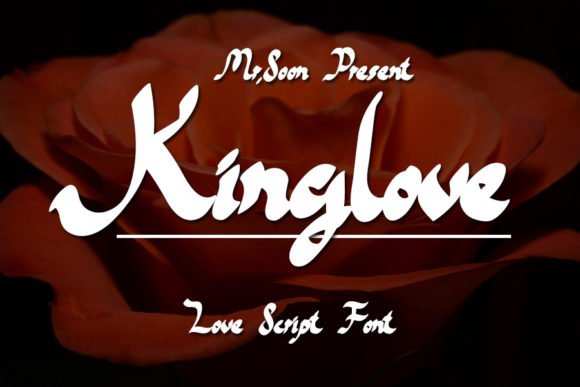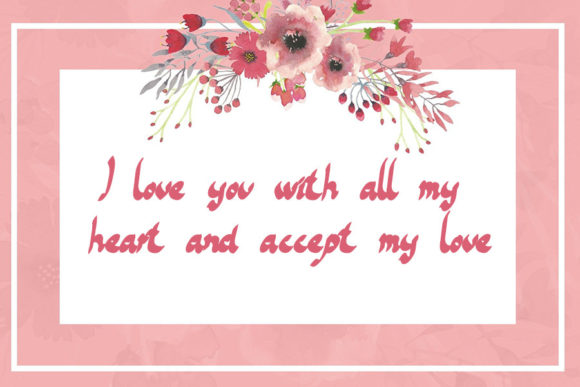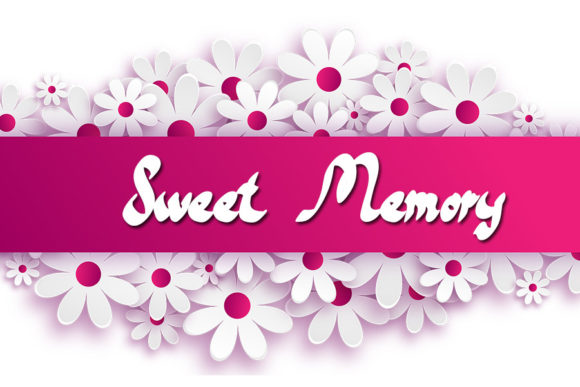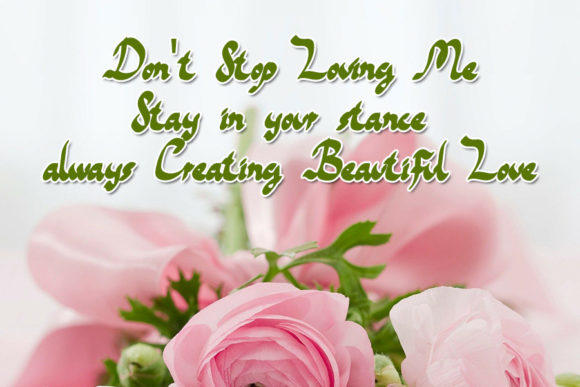
Unlock the Chic Charm of Your Designs with the Kinglove Font
Have you ever stared at a blank page, waiting for inspiration to strike? That’s exactly what happened to me when I discovered the Kinglove Font. As a designer, I was immediately drawn to its smooth curves and elegant feel. It’s the perfect addition to any project that requires a touch of sophistication and glamour.
The Kinglove Font is a chic and sweet script font designed to elevate your fashion branding or editorial designs. Its versatility makes it a valuable asset for designers looking to add a personal touch to their work. By incorporating the Kinglove Font into your projects, you’ll be able to convey a sense of luxury and refinement that’s sure to leave a lasting impression.
Kinglove Font Key Features
- Font Family: Kinglove Font is a unique, elegant script font designed for various applications.
- Character Set: The font includes a wide range of characters, including uppercase and lowercase letters, numbers, and punctuation marks.
- Unique Characteristics: Kinglove Font features elegant, flowing lines and a touch of sophistication, making it ideal for wedding invitations, branding, and other creative projects.
Kinglove Font Review
I recently had the chance to work with the Kinglove Font, and I must say it’s been an interesting experience. Here’s my honest review.
- The Kinglove Font has a unique, vintage charm that can add a touch of elegance to any design.
- The font is highly legible, making it perfect for body text and smaller font sizes.
- The font family includes a wide range of weights and styles, giving you plenty of options for customization.
- The font can be quite busy, with intricate details that may not be suitable for all designs.
- The font may not be the best choice for large font sizes, as it can become overwhelming.
- The font’s vintage feel may not be to everyone’s taste, so it’s essential to consider your target audience.
Overall, I think the Kinglove Font is a solid choice for designers looking for a unique and elegant font. While it may have some limitations, it’s definitely worth considering for the right project. Just be sure to use it wisely and balance it with other design elements.
Getting the Most Out of Kinglove Font
For optimal results, pair the Kinglove Font with complementary colors and use it in bold, eye-catching headings to draw attention. Experiment with font sizes and styles to create visual interest.
The Kinglove Font is ideal for creative projects, such as wedding invitations, greeting cards, and social media graphics. It’s also suitable for use in branding and marketing materials, like logos and business cards.